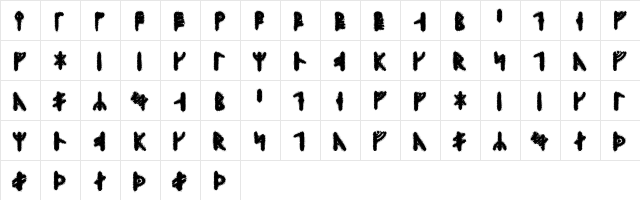
Skraeling Runic Regular
| Foundry | David Kerkhoff |
| Designer | David Kerkhoff |
| Year | 2010 |
Design Context for Skraeling Runic Typeface
Skraeling Runic is a composed and adaptable typeface that performs quietly and consistently across a wide range of design contexts.